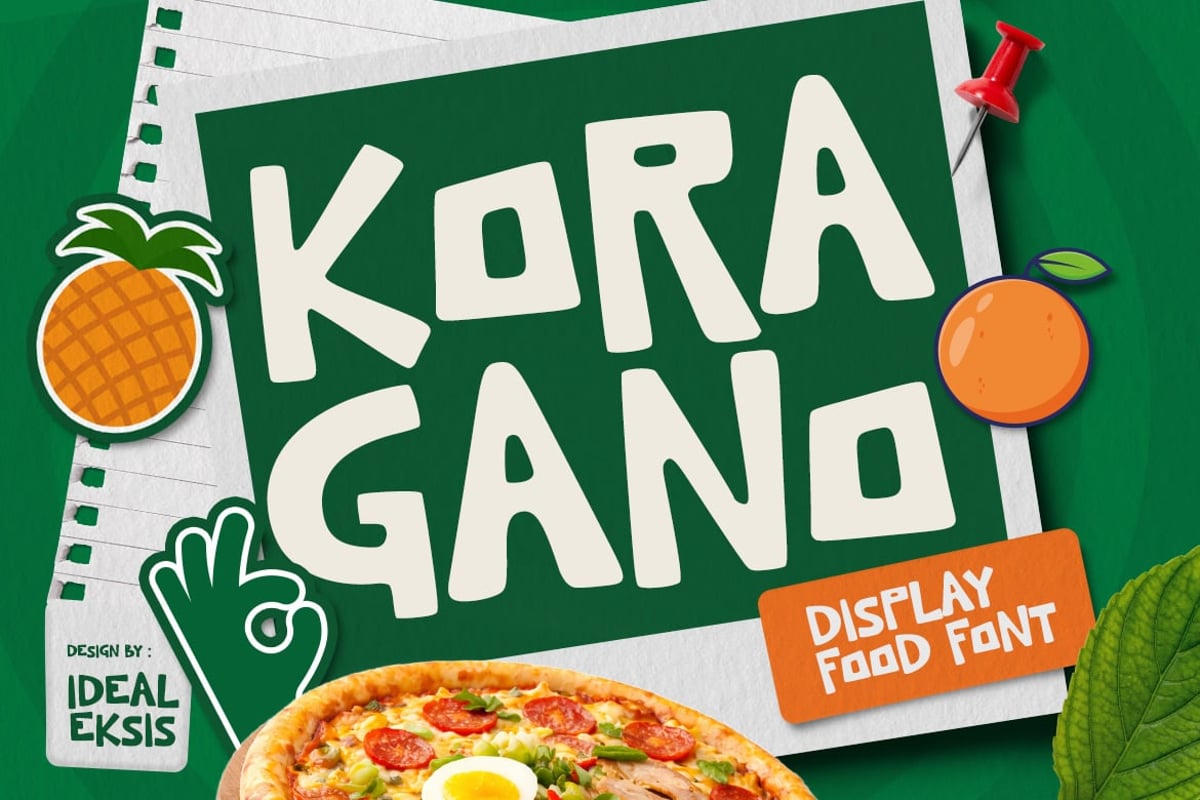
Kora Gano - Food Font
Bring delightfully quirky charm to your food designs with this playful display font that captures hearts instantly. Kora Gano features bold, rounded letterforms with a charmingly irregular baseline that creates an authentic hand-drawn, vintage cartoon aesthetic. Each character feels uniquely crafted with soft edges and a friendly, approachable personality that demands attention. This whimsical typeface infuses any creative project with spirited character and irresistible charm. Whether you're de...